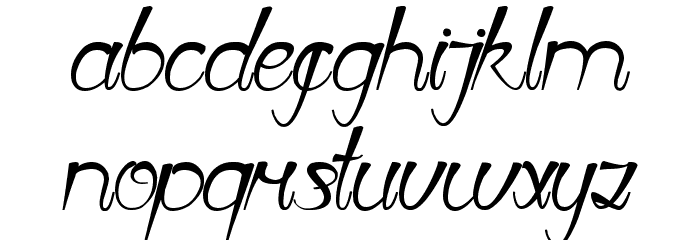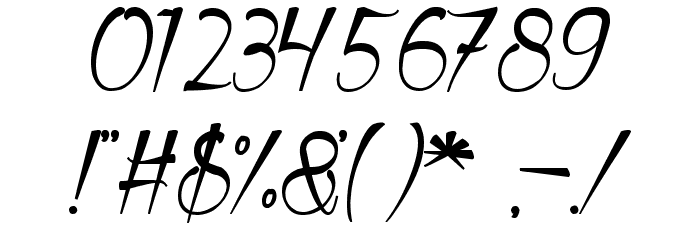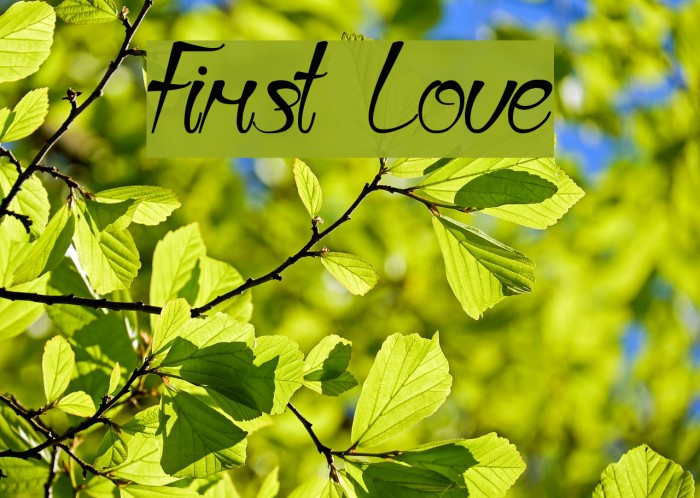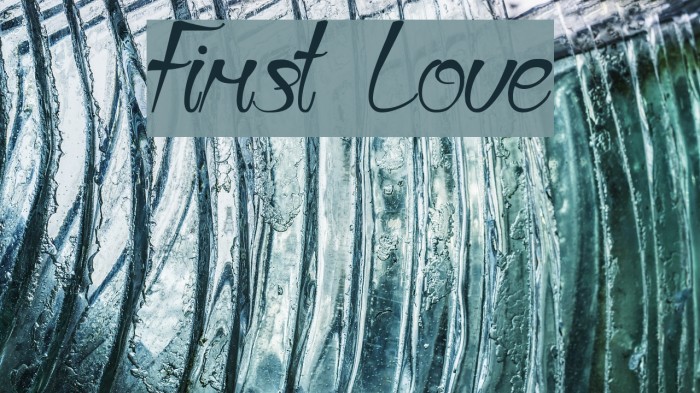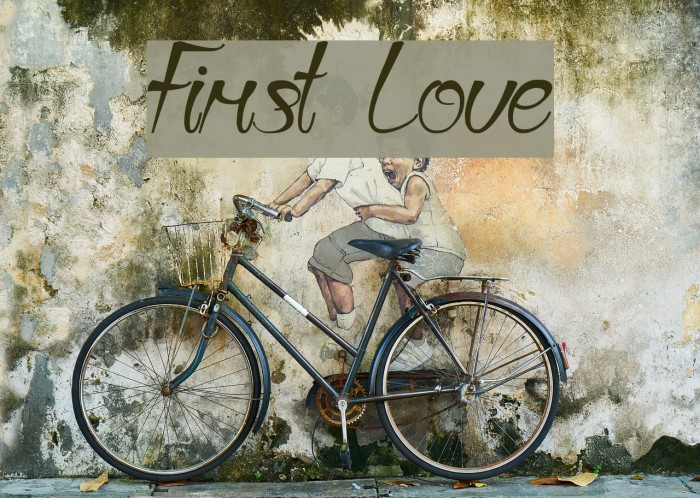
First Love Font
This font features an elegant and flowing script style, characterized by its smooth, cursive lines and graceful curves. The uppercase letters are tall and slightly slanted, giving a sense of movement and fluidity. The lowercase letters maintain a consistent style, with loops and swirls that add a touch of sophistication. The numerals are designed to match the overall aesthetic, with a slight slant and decorative flair. Special characters are integrated seamlessly, maintaining the font's cohesive look. This font exudes a sense of romance and elegance, making it ideal for projects that require a personal and artistic touch.
An elegant, flowing script font with graceful curves and a romantic style.
- Proposed Projects: Ideal for wedding invitations, greeting cards, personal branding, and artistic projects.
- Category: Script
- Overall Style: Romantic, Elegant
- Use Case: Logos, Invitations, Artistic projects